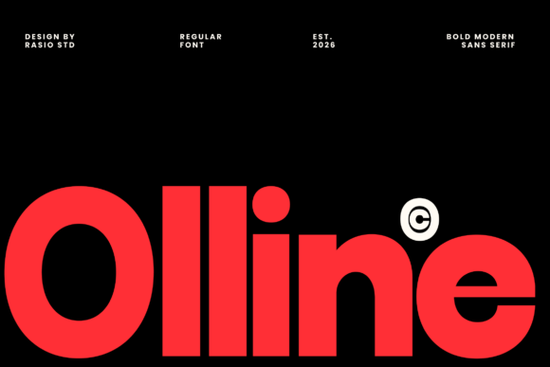
Choosing the right typeface can make or break a design. If you've been searching for a bold, geometric sans serif that works across branding, digital ads, and print layouts, the Olline Font is worth a close look. It's a modern sans serif with thick strokes, clean curves, and a confident visual presence that fits right into contemporary design projects.
I've spent time working with this typeface, and in this article, I'll walk you through where it works best, who it's designed for, and how to get the most out of it in your next project.
What Makes Olline Font Stand Out?
Olline is built on strong geometric construction. The letterforms are bold and minimal, with consistent stroke widths and smooth curves. It includes uppercase, lowercase, numerals, and punctuation, giving you a full character set for professional work.
What I appreciate most is how it balances boldness with readability. Some heavy sans serif fonts sacrifice clarity for visual weight, but Olline keeps things clean. You can set it large for headlines or scale it down for subheadings without losing legibility.
Who Should Use This Typeface?
This font is a solid choice for a wide range of creative professionals and hobbyists:
- Graphic designers working on brand identities and logo concepts
- Small business owners creating marketing materials in-house
- Print-on-demand sellers designing t-shirts, mugs, and posters
- Web designers looking for strong header fonts with modern appeal
- Crafters who need bold, clean text for Cricut and Silhouette projects
- Editorial designers setting magazine or blog headlines
If your work demands a typeface that feels modern, professional, and visually strong, Olline checks those boxes.
Where Does Olline Work Best?
Based on its design characteristics, here are the types of projects where this font really shines:
- Brand logos and corporate identity The geometric structure gives logos a polished, trustworthy feel.
- Website headers and hero sections Bold strokes grab attention without looking cluttered.
- Poster and packaging design Works well at large sizes where its thick letterforms can breathe.
- Digital advertising and social media graphics Clean enough for small screens, strong enough to stop a scroll.
- Technology and startup campaigns Its sleek, minimal aesthetic fits tech-forward branding.
- Editorial layouts and magazine spreads Great for impactful headlines that need to carry visual weight.
How Does It Compare to Other Bold Sans Serifs?
There are plenty of bold geometric sans serifs available, so what makes Olline different? It comes down to the balance between personality and neutrality. Some bold fonts feel too playful or too rigid. Olline sits in the middle it has enough character to feel distinctive but stays versatile enough for professional use.
Tips for Getting the Most Out of Olline
After working with bold geometric fonts like this one, here are a few practical tips:
- Pair it with a lighter weight or serif font for body text. Olline's boldness is meant for headlines let a simpler companion font handle longer paragraphs.
- Use generous spacing when setting all-caps text. Letter-spacing prevents uppercase geometric fonts from feeling too tight.
- Test at multiple sizes before finalizing. What looks great at 72pt might need adjustment at 24pt for subheadings.
- Keep backgrounds simple. Bold geometric fonts work best against clean, uncluttered backgrounds where the letterforms can stand out.
- Consider contrast in color pairing. Dark text on light backgrounds (or vice versa) maximizes the visual punch of thick strokes.
Is Olline the Right Font for Your Project?
If your design needs a bold, modern sans serif that reads well in both digital and print formats, Olline is a strong contender. It's not trying to be everything it does one thing well, which is delivering confident, clean typography with a contemporary edge.
Whether you're building a brand from scratch, designing social media templates, or putting together a poster for an event, this typeface gives you a reliable foundation to work from.